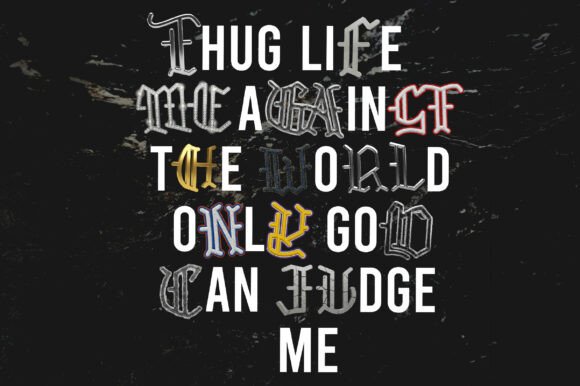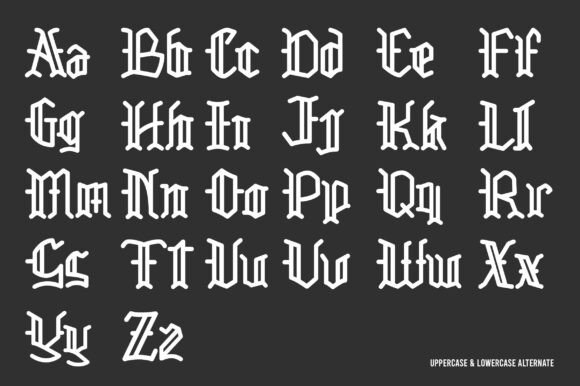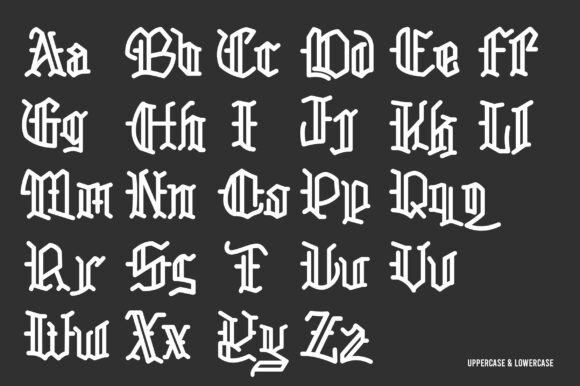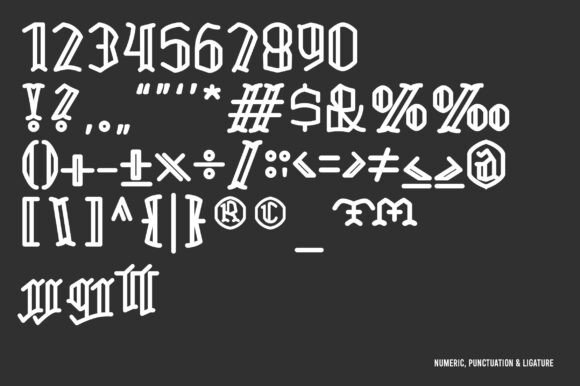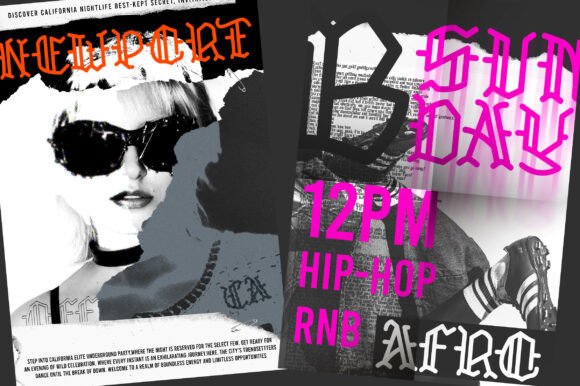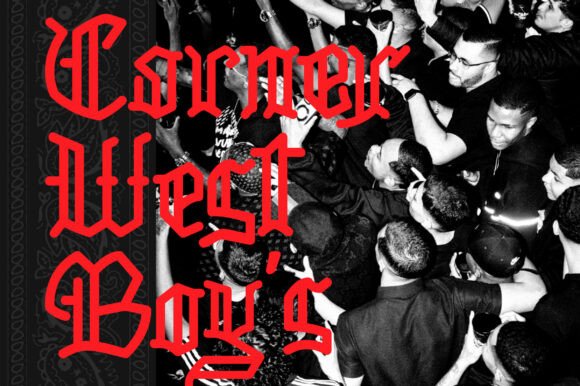
Introduction to Manson Font
MANSON Blackletter is carefully hand-drawn and organically crafted, boasting two captivating styles: Regular Includes Alternate.
This font is tailor-made for commanding headlines, captivating packaging, and alluring labels, exuding a robust and assertive persona while exquisitely channeling a vintage aesthetic, characteristic of the esteemed blackletter tradition .